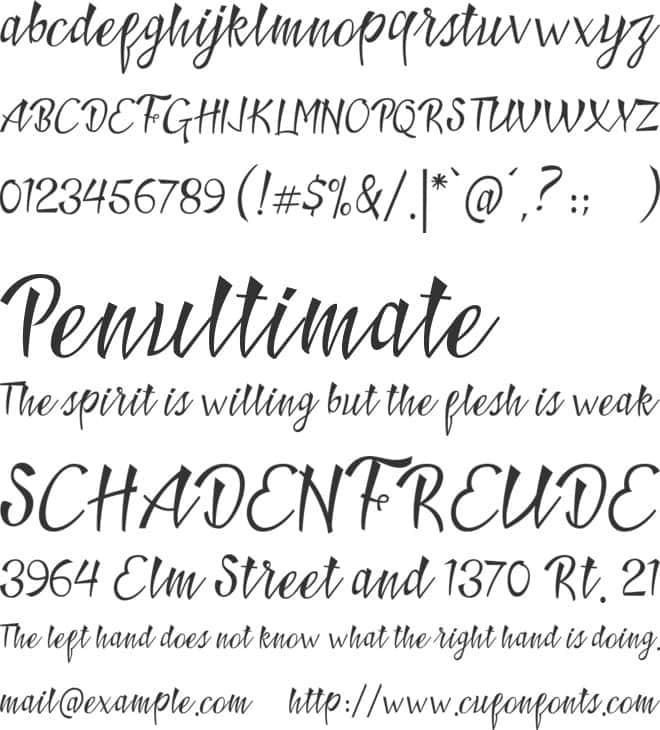
badhead
Badhead Font is a bold, playful typeface available in OTF, TTF, and WOFF formats. Ideal for creative projects, posters, and children-s designs.
Unleash Creativity with Badhead Font
Badhead Font, crafted by renowned designer Alex Smith in 2022, is a captivating typeface that embodies a bold and playful character. This font is perfectly suited for creative endeavors, including children’s projects, posters, and vibrant branding materials. Its unique design makes it an excellent choice for capturing attention and adding a fun element to various applications.
Versatile Features and Available Formats of Badhead Font
The Creative Journey Behind Badhead Font
Inspired by a blend of childhood nostalgia and contemporary aesthetics, Badhead Font was developed to bring joy and vibrancy to every design. Alex Smith’s passion for fonts shines through in its playful curves and bold strokes, making this typeface a favorite in the creative community.
Ideal Applications for Badhead Font
Badhead Font excels in applications that require a fun and engaging atmosphere, making it perfect for children’s book covers, playful branding, event posters, and even social media graphics. Its unique style and appeal allow it to stand out in the crowded world of typefaces.